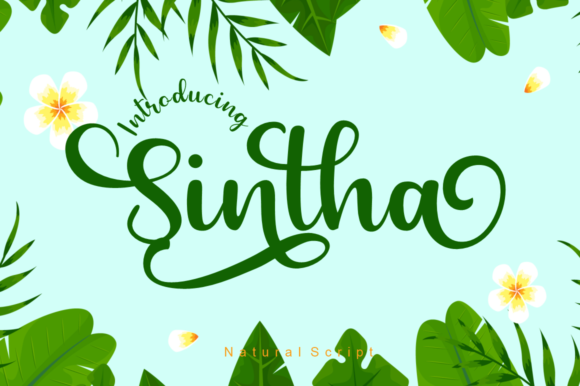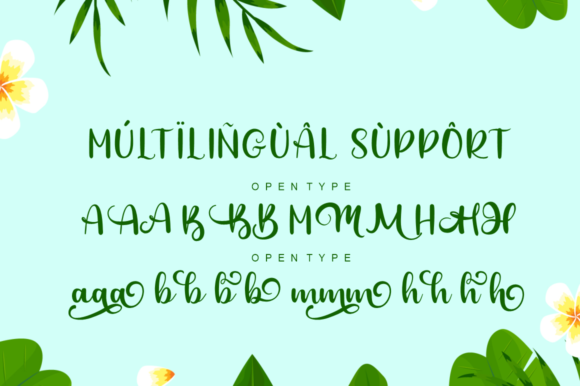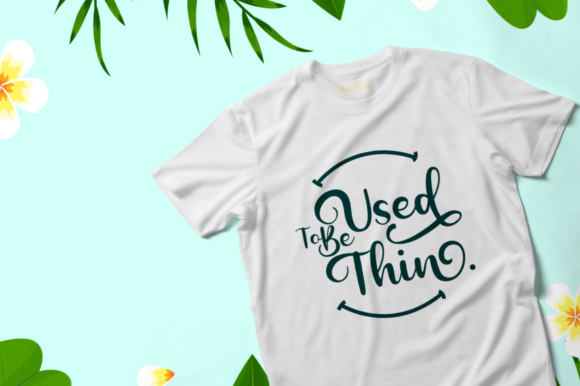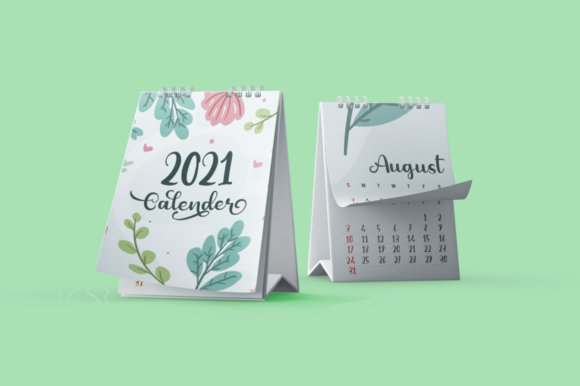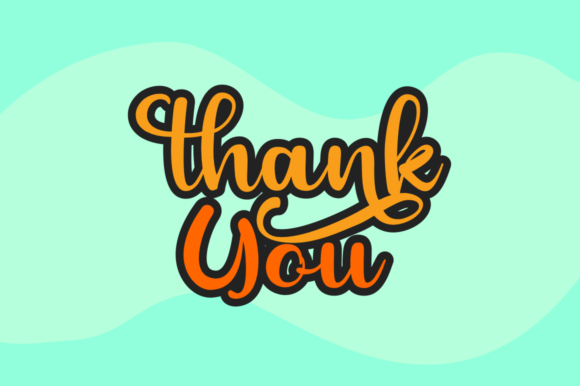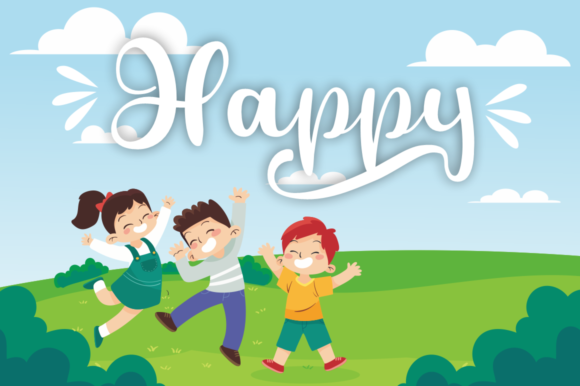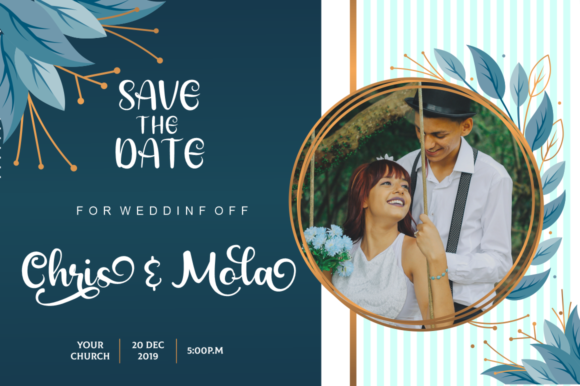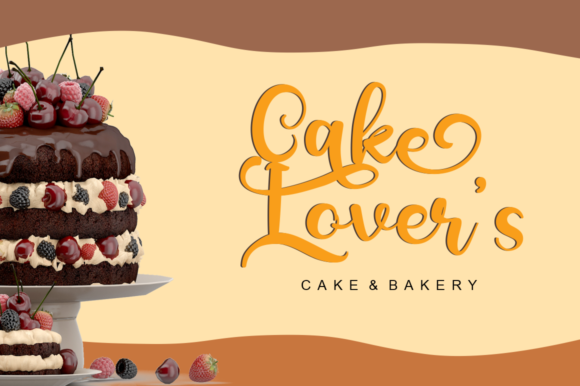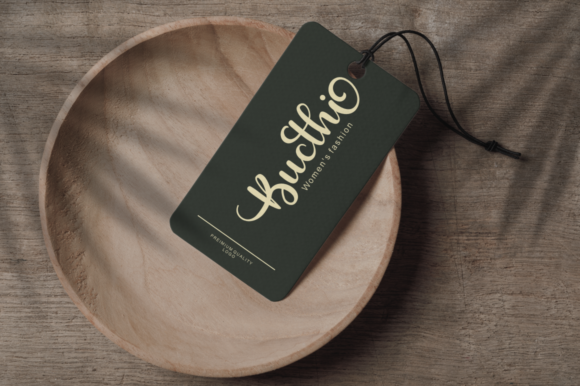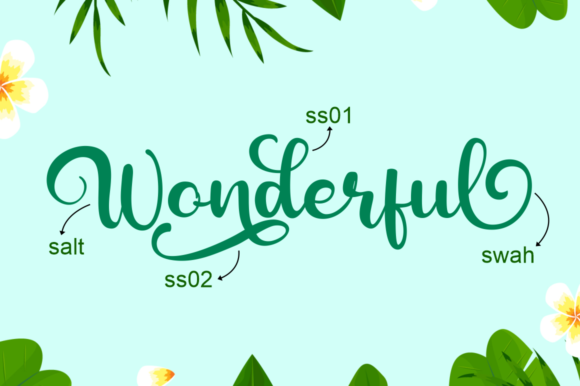
Sintha Font
About Sintha Font
Sintha font is indeed a beautiful handwritten font that exudes elegance and charm. Its delicate and flowing letterforms make it a perfect choice for various design projects, including logos, greeting cards, calendars, wedding invitations, and even t-shirts.
With its graceful curves and stylish flair, Sintha adds a touch of sophistication to any design. Whether you’re creating a logo for a luxury brand, designing a personalized greeting card, or crafting an elegant wedding invitation, Sintha’s beauty and versatility make it a wonderful option.
One of the notable features of Sintha is its PUA encoding. This means that you can easily access all the available glyphs and swashes, giving you even more design possibilities. With a wide range of alternate characters and ligatures at your disposal, you can customize and embellish your text to create unique and eye-catching designs.
Sintha’s versatility extends beyond specific design projects. Its timeless appeal makes it suitable for a variety of applications, allowing you to explore your creativity across different mediums. Whether you’re designing for print or digital platforms, Sintha’s legibility and charm will shine through.
Overall, Sintha is a beautiful handwritten font that adds elegance and personality to your designs. Its PUA encoding provides easy access to a variety of glyphs and swashes, allowing you to customize and enhance your designs further. Embrace the beauty of Sintha and let it elevate your projects with its exquisite style.